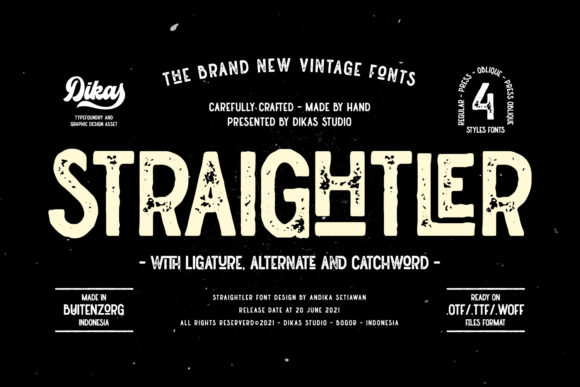
Step into the realm of captivating typography with Straightler Font, an assertive display font that commands attention with its rough-styled charm. Created by the talented Dikas Studio, Straightler Font exudes an imposing presence with its simple yet striking letterforms, making it the perfect choice for designs seeking a distinct and unforgettable touch.
Unleash your creativity with Straightler Font, the ultimate font for quote marks. Let your words shine with boldness and impact as they are adorned with the uniquely shaped letters of Straightler Font. Say goodbye to ordinary quotes and elevate your designs with a touch of edginess that is sure to leave a lasting impression.
With Straightler Font, the possibilities are endless. Craft eye-catching headlines that demand attention, create social media graphics that pop, or design posters and flyers that make a statement. The versatility of Straightler Font allows it to seamlessly adapt to a diverse range of projects, from edgy branding to playful invitations.
Embrace the power of Straightler Font and watch as your designs transform into captivating masterpieces. Make a bold statement with every word, every quote, and every design. Let Straightler Font be your creative ally, propelling your projects to new heights of visual impact.